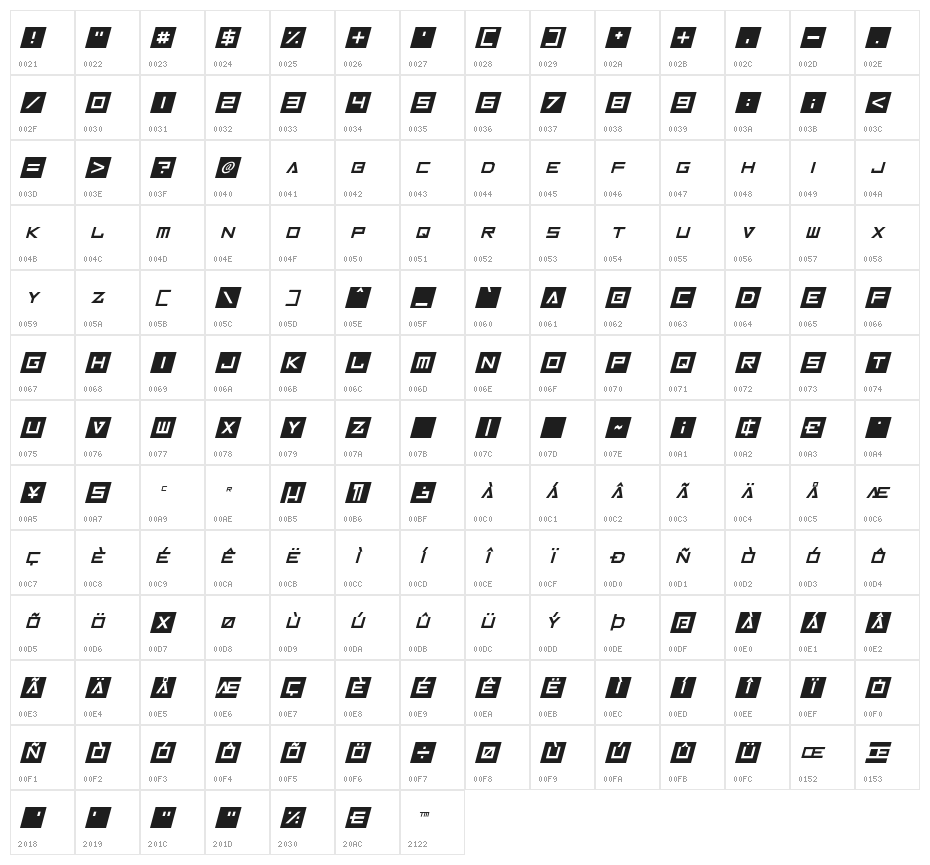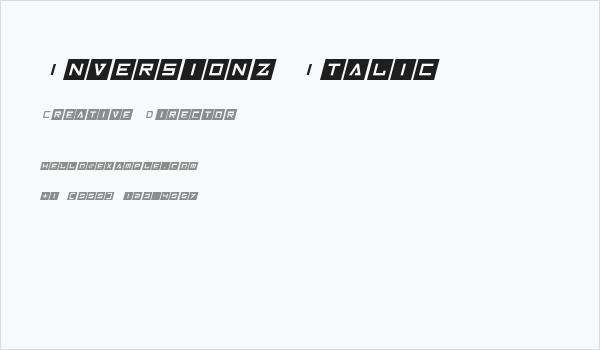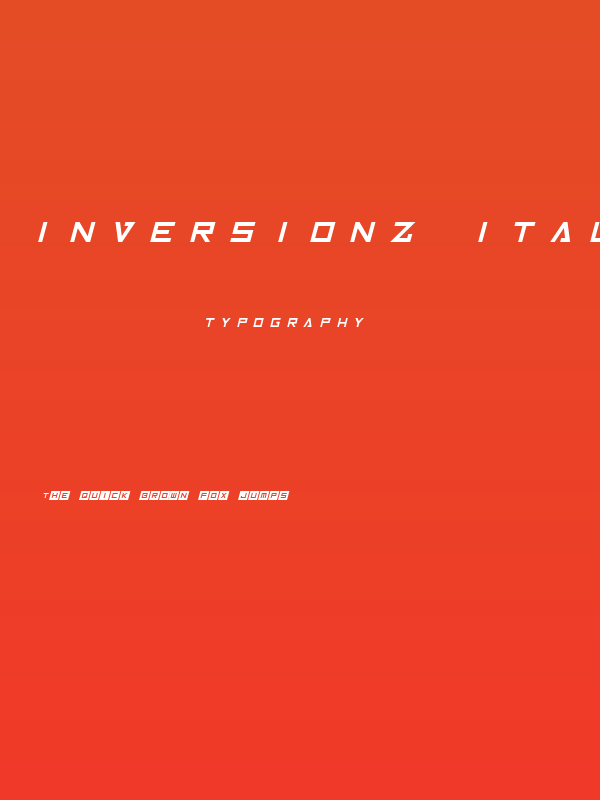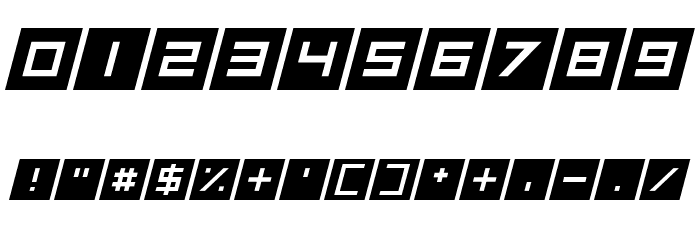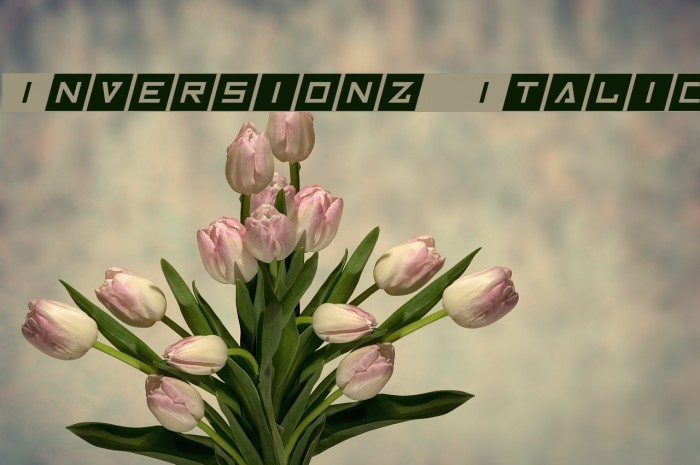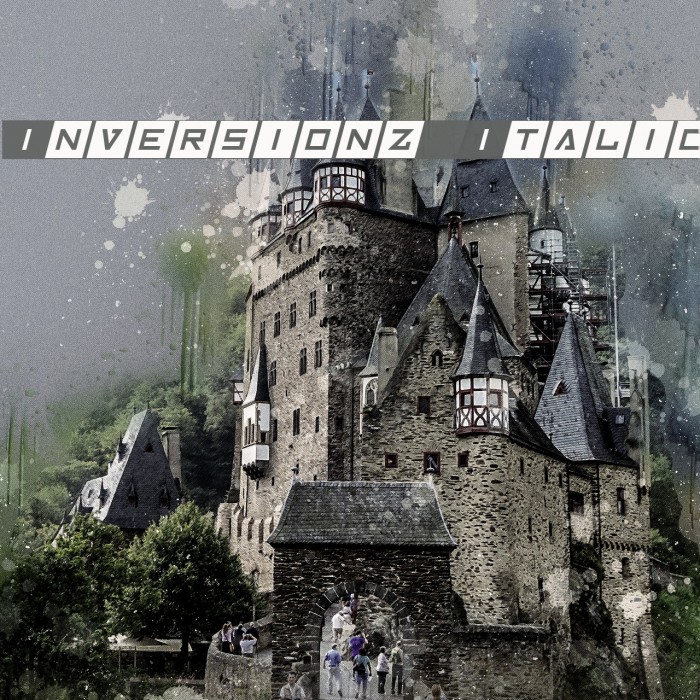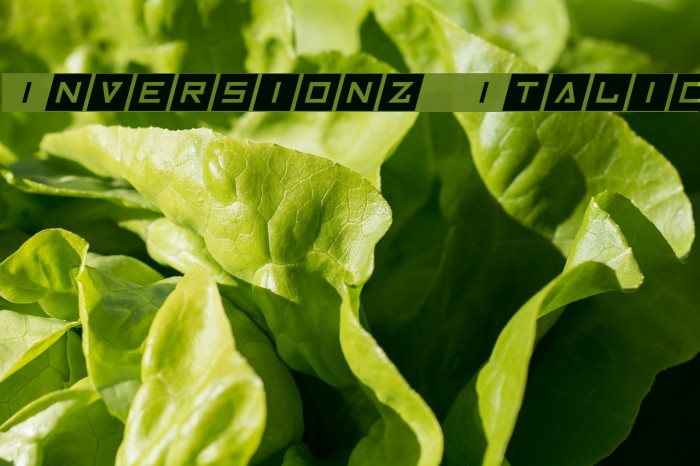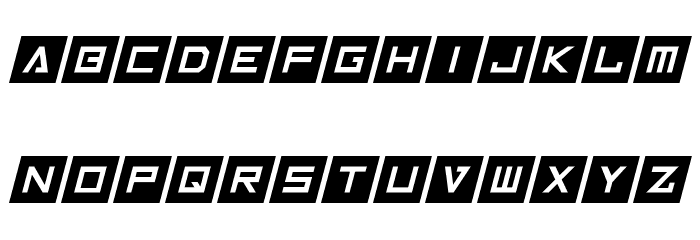
Inversionz Italic Font
Inversionz Italic Description
This font features a modern, italicized style with a strong geometric influence. The characters are angular and slanted, giving a sense of motion and dynamism. Uppercase letters are bold and prominent, while lowercase letters maintain the same angular style, ensuring consistency across the typeface. The numbers are equally bold and geometric, matching the overall aesthetic. Special characters are included, maintaining the same stylistic approach, making this font versatile for various uses. The design is clean and sharp, suitable for contemporary projects that require a futuristic or tech-inspired look.
| Overall Style | Modern, Futuristic |
| Proposed Projects | Ideal for tech branding, futuristic designs, video game titles, and dynamic posters. |